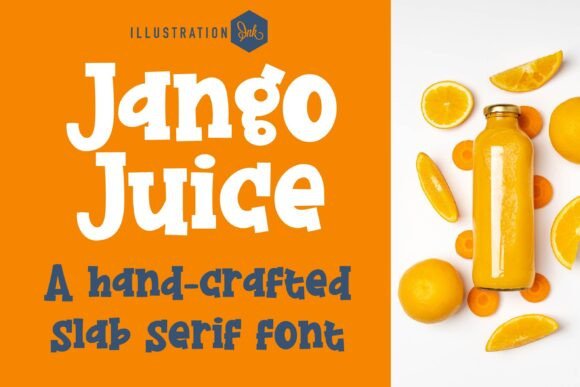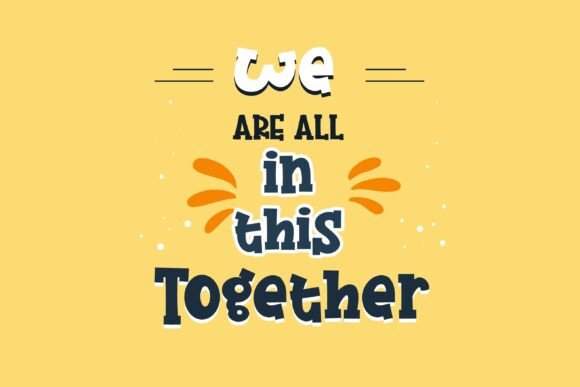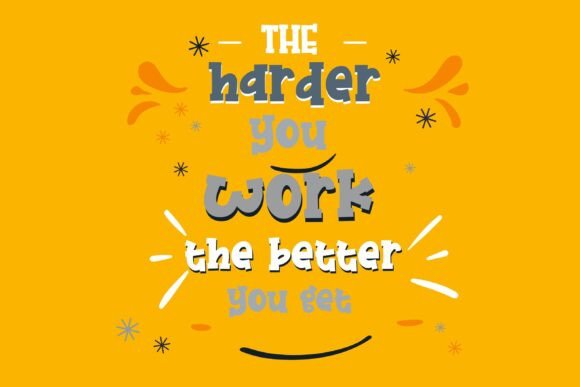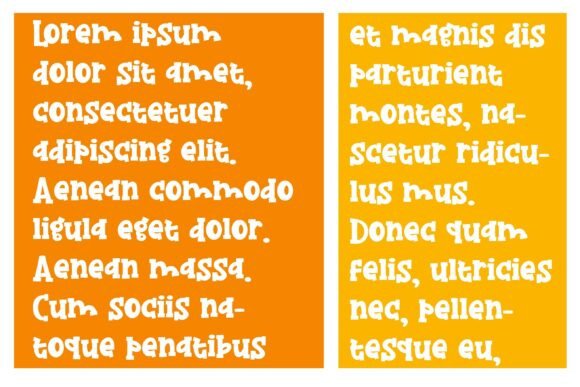
Jango Juice Font
About the Jango Juice Font
The wait is over! The incredible Jango Juice Font is now available for your design toolkit. This hand-crafted font is a whimsical, serif font with a bit of bounce in the baseline.
Jango Juice is ideally suited for headlines, short text blocks on posters, and branding elements where a playful yet slightly quirky feel is desired. Its bouncy baseline adds a touch of dynamism, making it perfect for projects targeting a younger demographic or conveying a fun, approachable brand identity. Avoid using it for body text or lengthy paragraphs; its whimsical nature can become overwhelming and difficult to read in extended use.
Pair Jango Juice with a clean, modern sans-serif like Open Sans for a balanced contrast, or a more geometric sans-serif for a slightly more sophisticated look. For a touch of elegance, consider pairing it with a delicate script font, but use it sparingly as a secondary element. Avoid pairing it with other highly decorative or heavily stylized fonts.
The overall personality of Jango Juice is friendly and energetic, with a touch of informal charm. It’s best suited for brands focusing on youthfulness, creativity, or handcrafted goods.
Jango Juice Font Usage Examples
Jango Juice Font Example